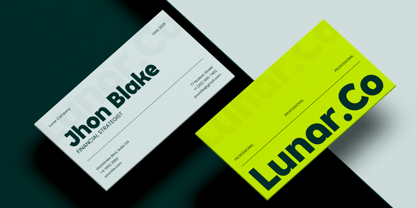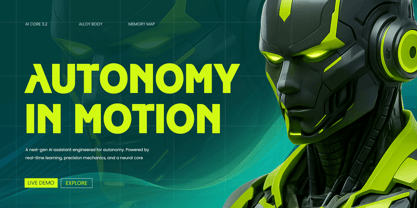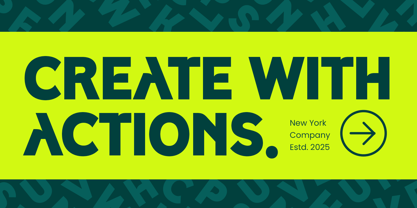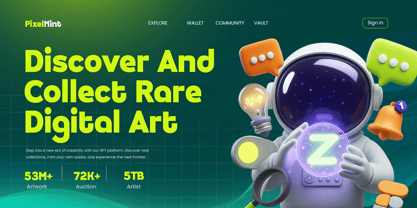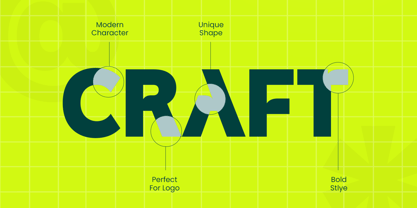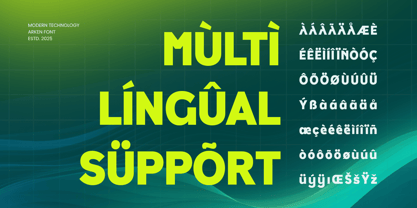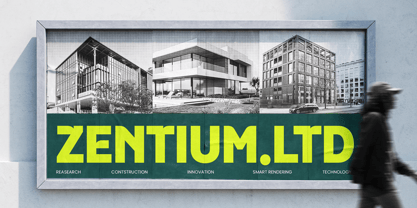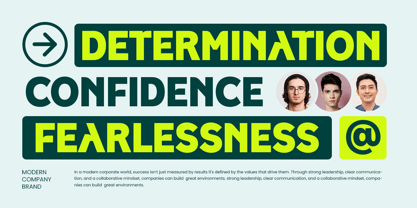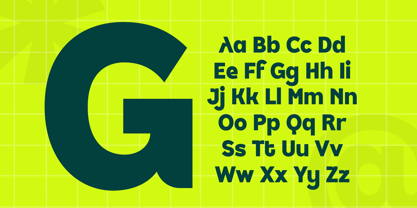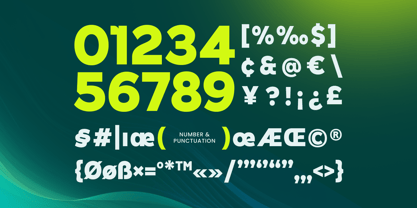
Akren
by Sensatype Studio
The Akren Font Family was designed by Zamroni Hamzah and published by Sensatype Studio. Akren contains 1 styles. More about this family
AKREN is a modern technology font designed with a futuristic edge and sleek precision. Ideal for branding, tech startups, UI/UX interfaces, and digital products, AKREN brings a clean, innovative feel to any visual identity. Inspired by cyber aesthetics and minimalist geometry, each letter in AKREN reflects a forward-thinking design style. The font’s sharp forms and consistent spacing offer clarity while delivering a bold, professional appearance in digital or print environments. Whether you're building a high-tech brand, software interface, or a futuristic poster, AKREN is your go-to font for creating a strong and modern statement. AKREN – Modern Technology Font Features Sharp and futuristic character set Clean geometric style for modern designs Punctuation, numbers, and symbols included Available in 4 formats Uppercase and lowercase letters OpenType features for extra versatility Ready with Alternate Characters Multilingual support for Afrikaans, Albanian, Asu, Basque, Bemba, Bena, Breton, Chiga, Cornish, Dutch, English, Estonian, Filipino, Finnish, Friulian, Galician, German, Gusii, Indonesian, Irish, Italian, Kabuverdianu, Kalenjin, Kinyarwanda, Luo, Luxembourgish, Luyia, Machame, Makhuwa-Meetto, Makonde, Malagasy, Manx, Morisyen, North Ndebele, Nyankole, Oromo, Portuguese, Quechua, Romansh, Rombo, Rundi, Rwa, Samburu, Sango, Sangu, Scottish Gaelic, Sena, Shambala, Shona, Soga, Somali, Spanish, Swahili, Swedish, Swiss, and more. Level up your next tech project with AKREN – the ultimate font for a clean, modern, and futuristic look! 🚀🧠